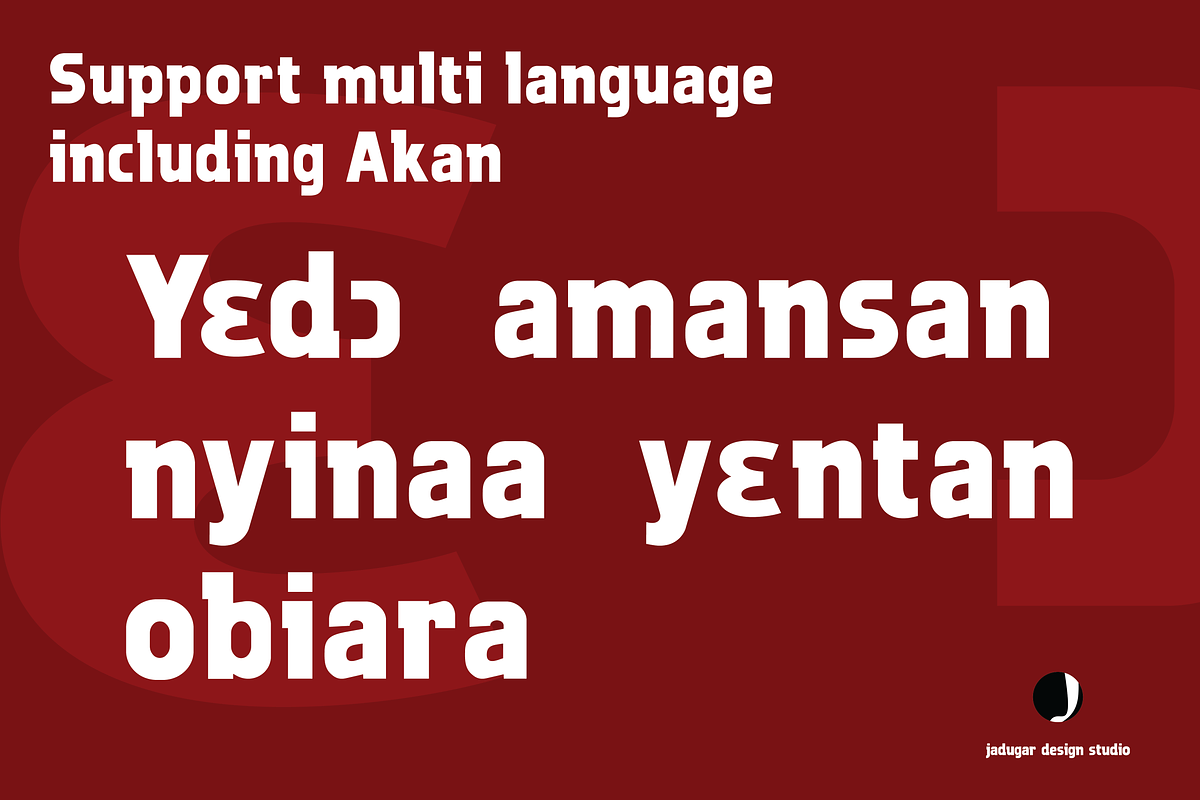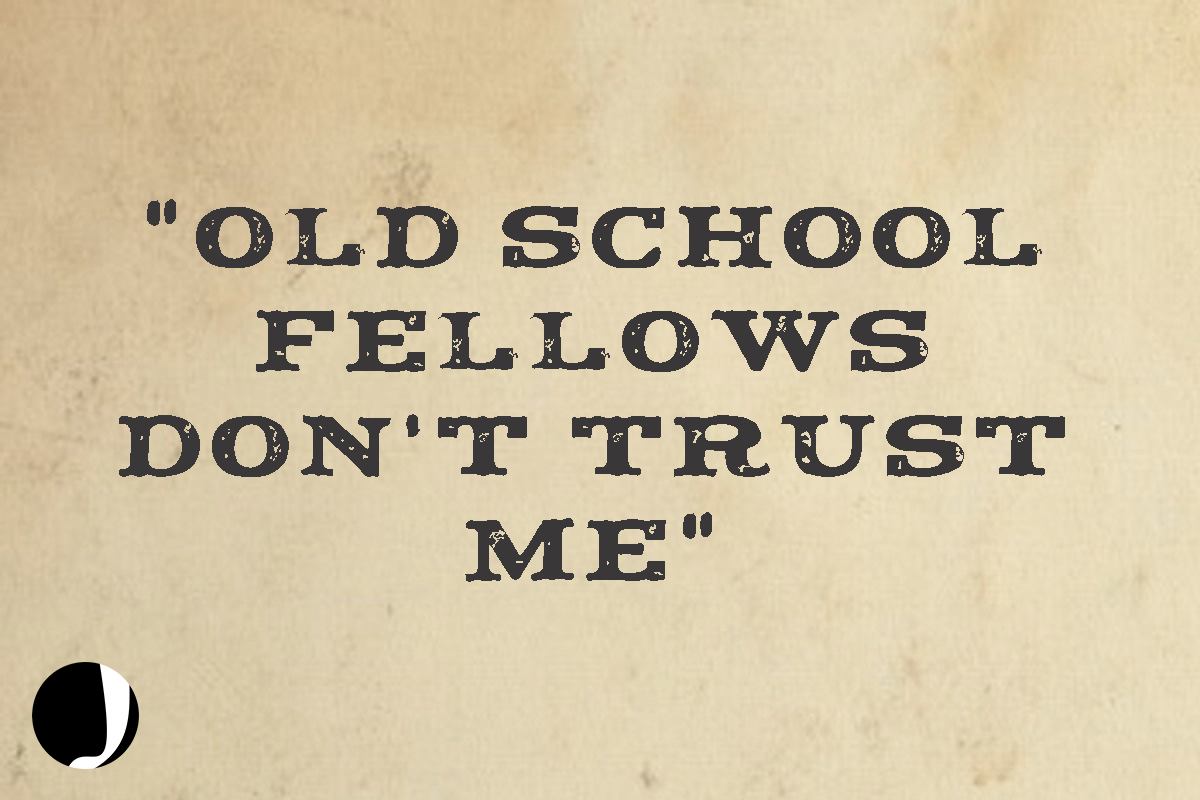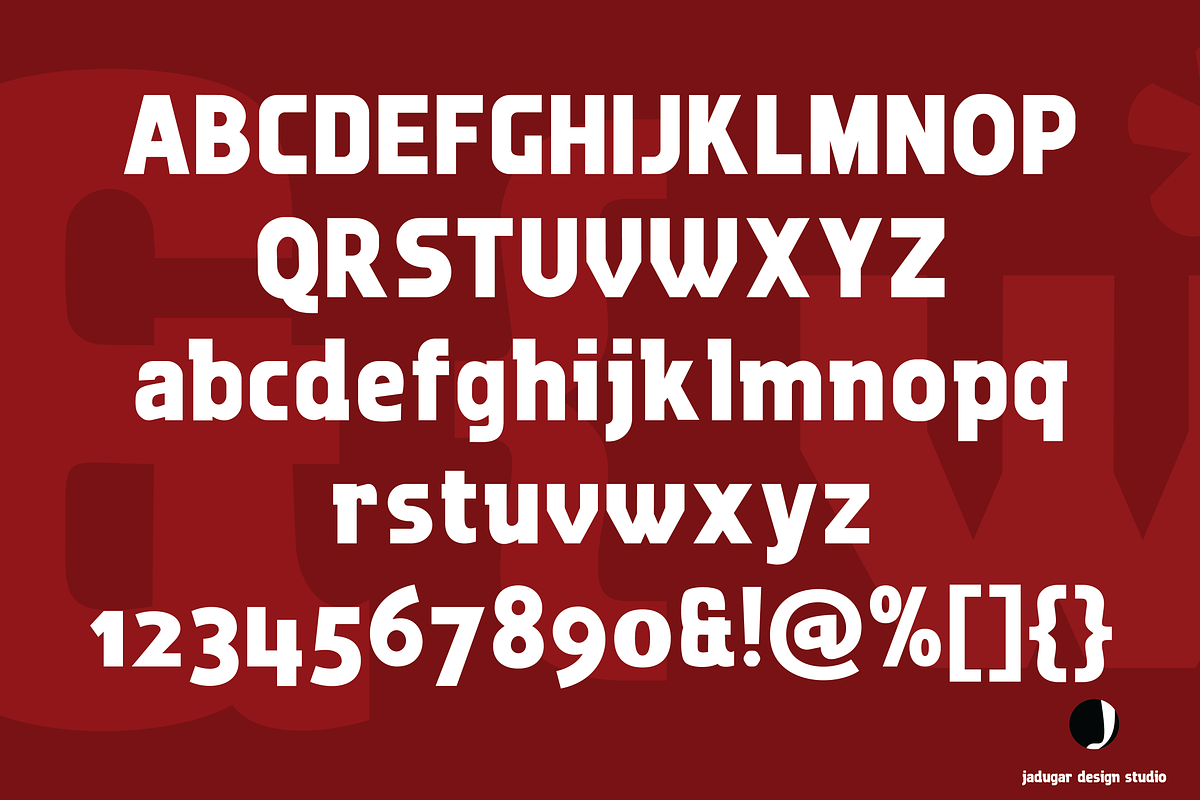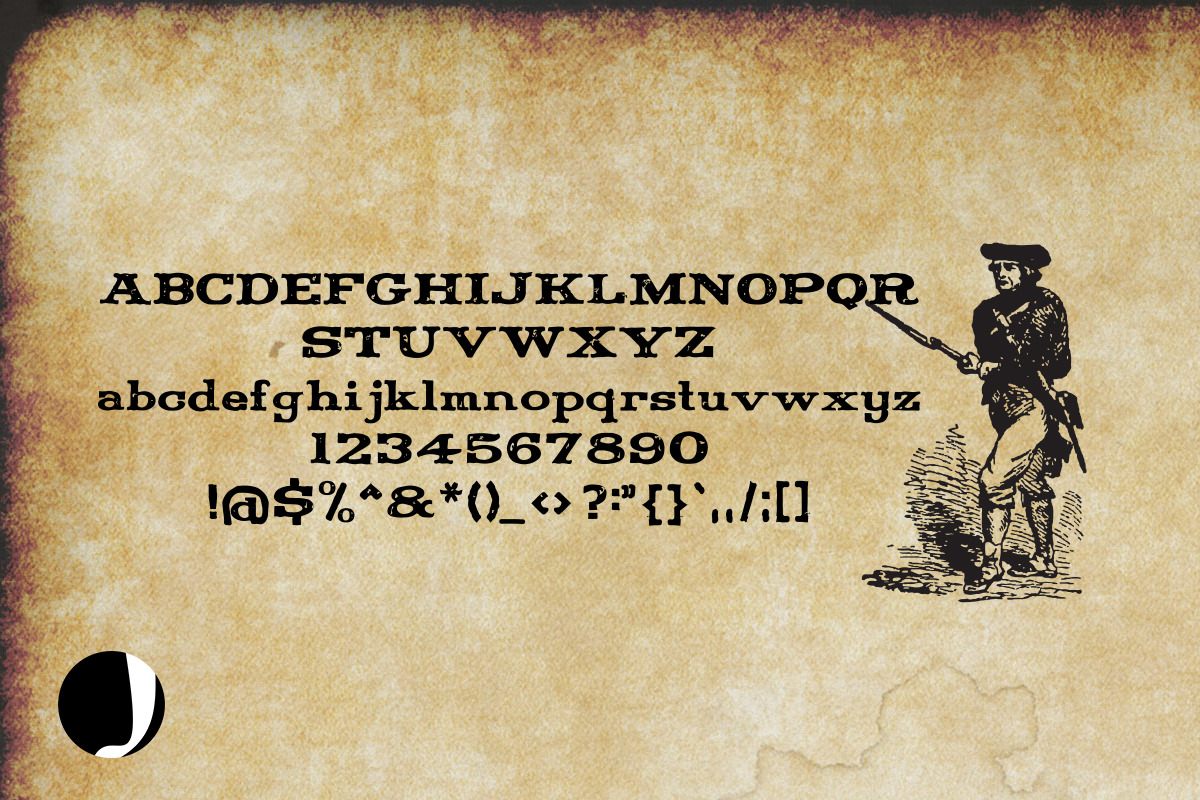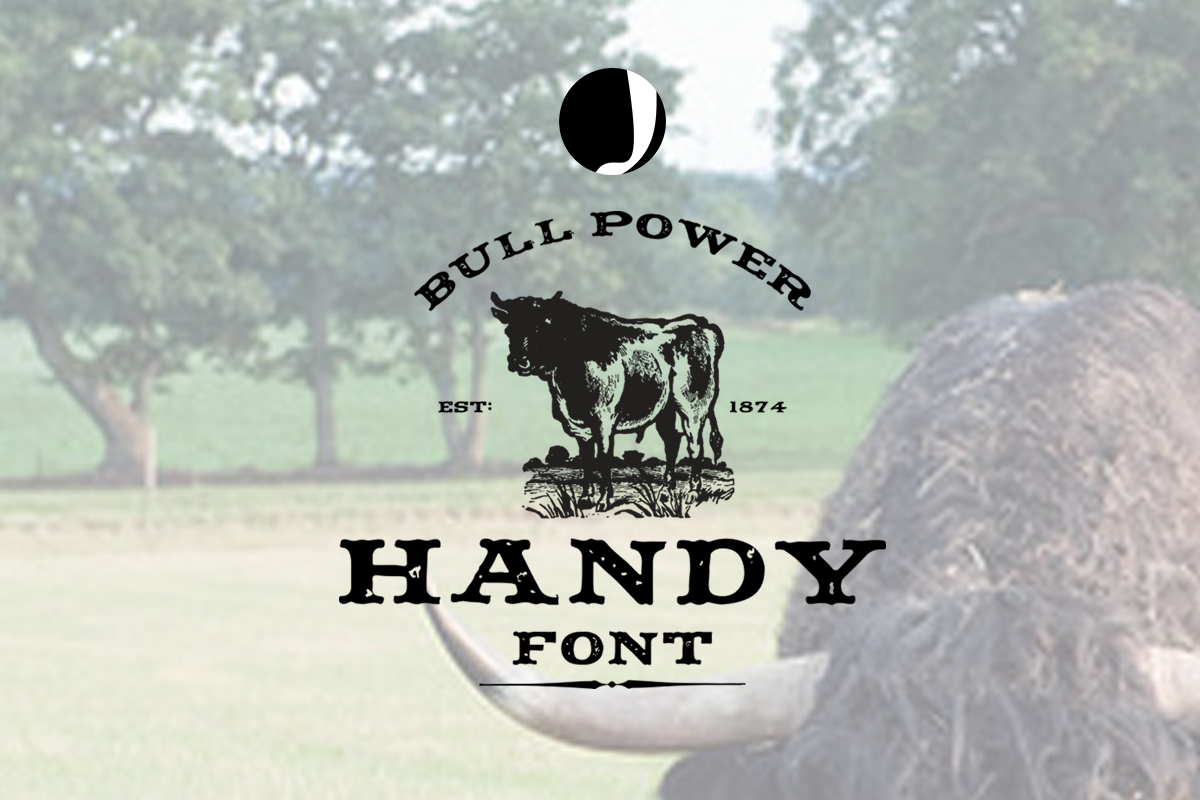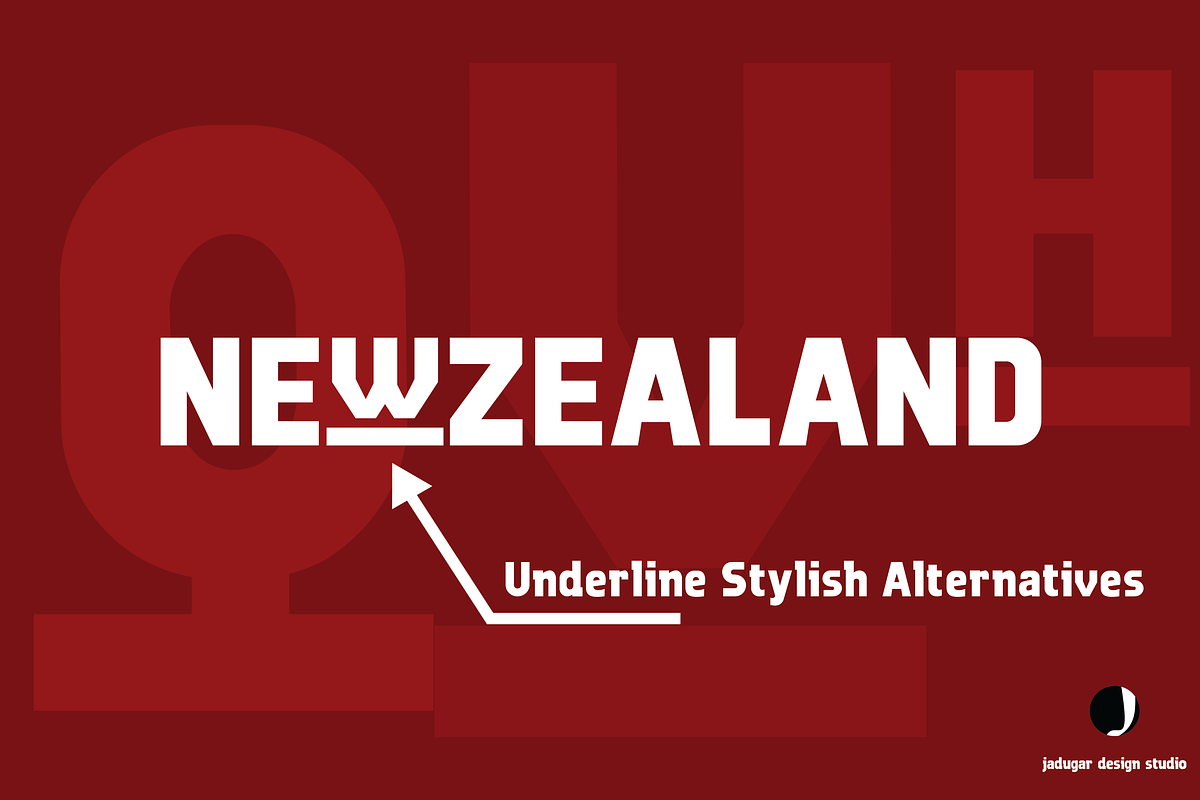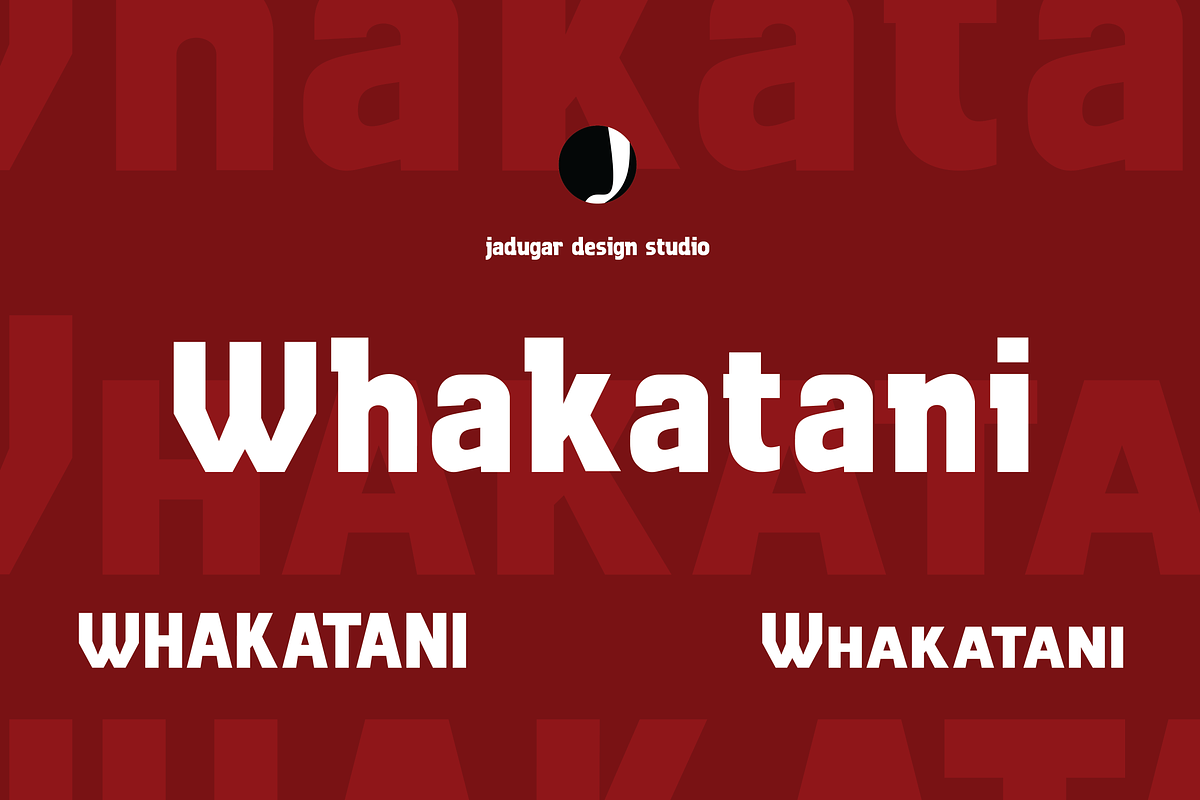
Font Bundle-34 Fonts
Font Bundle-34 Fonts by Jadugar Design Studio is a font selected for branding, posters, packaging, typography.
Why Font Bundle-34 Fonts is worth a look
Font Bundle-34 Fonts by Jadugar Design Studio fits naturally into Branding, posters, packaging, typography.